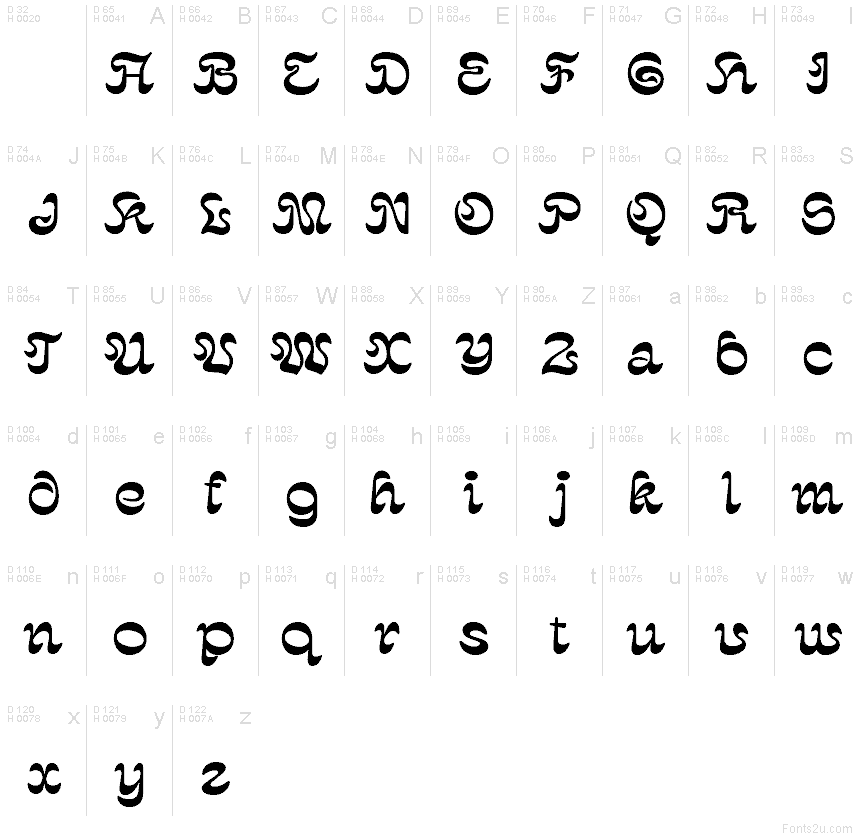
CS Andie Regular Demo
CS Andie font by Craft Supply Co. is a free bold brush display font. It stands out with plush, inky strokes that swell into petal-like terminals, giving every word a juicy, hand-painted thump. The sculpted curves and looping joins create a rhythmic bounce—expressive without turning messy—so headlines feel lively and legible at a glance.
Using CS Andie, you’ll get instant personality for festival posters, boutique packaging, café menus, album covers, beauty branding, and social quote cards. The dense forms hold up on stickers and merch, too, where the rounded contours print clean. Pair this free font with a clean geometric sans for body copy, and give it generous line spacing to let those bold curves breathe.